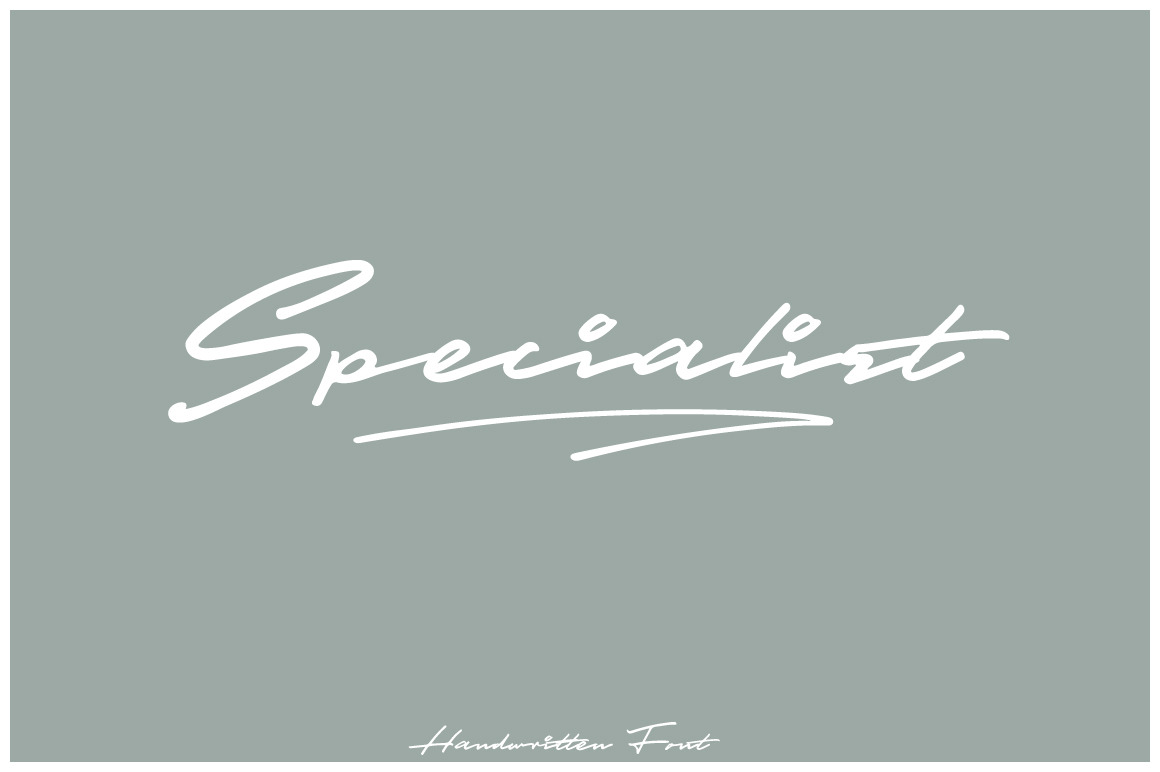
Specialist Handwritten Font
Specialist Handwritten font it is a chic, signature, script which will give instant class and style to your work. Use this font for branding, logo's, signatures, invites, and all your other lovely projects.